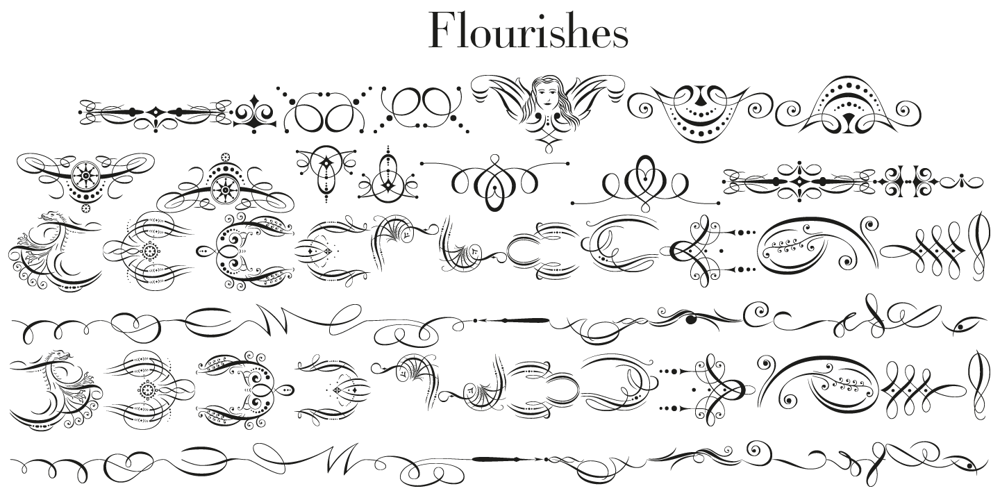
Flourishes A Font Family was designed by Gert Wiescher and published by Wiescher Design. Flourishes A contains 1 styles and family package options. FlorishesA are a set of flourishes, that serves well for frames and other elegant embellishments, they are beginning of last century American. Your I-found-them-somewhere type-designer, Gert Wiescher